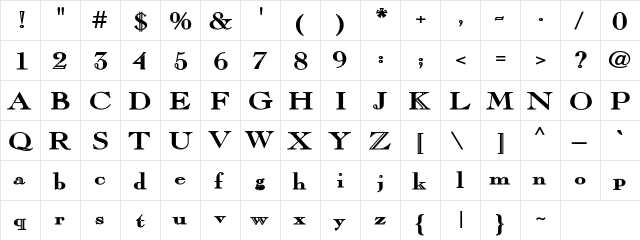
Pinchi-Bold Regular
Design Context for Pinchi-Bold Typeface
Pinchi-Bold takes a measured approach to typography — its balanced proportions and neutral character make it a reliable workhorse for both digital and print work. The heavy weight commands attention and anchors typographic hierarchies.